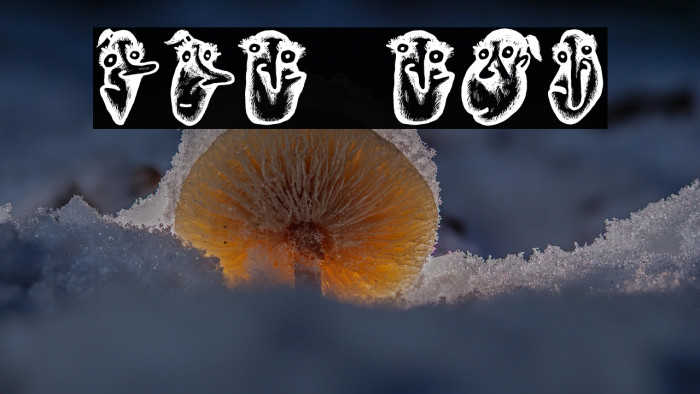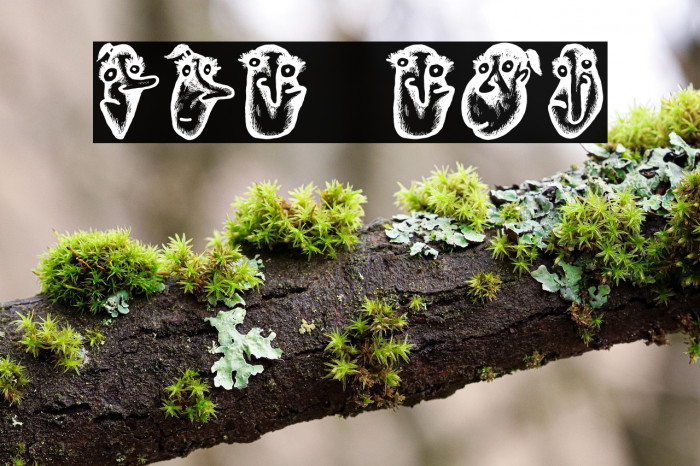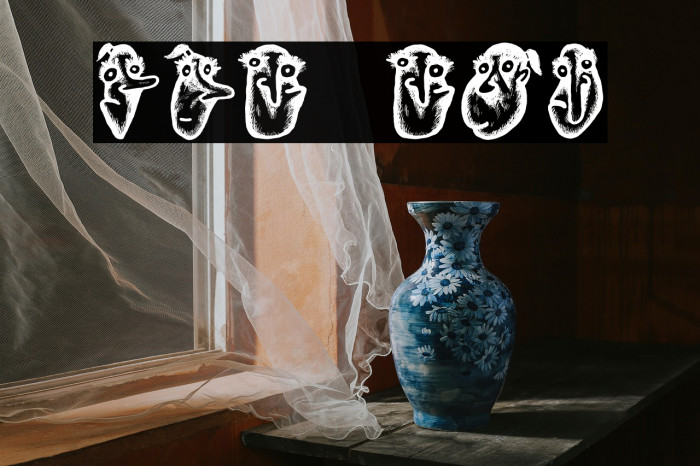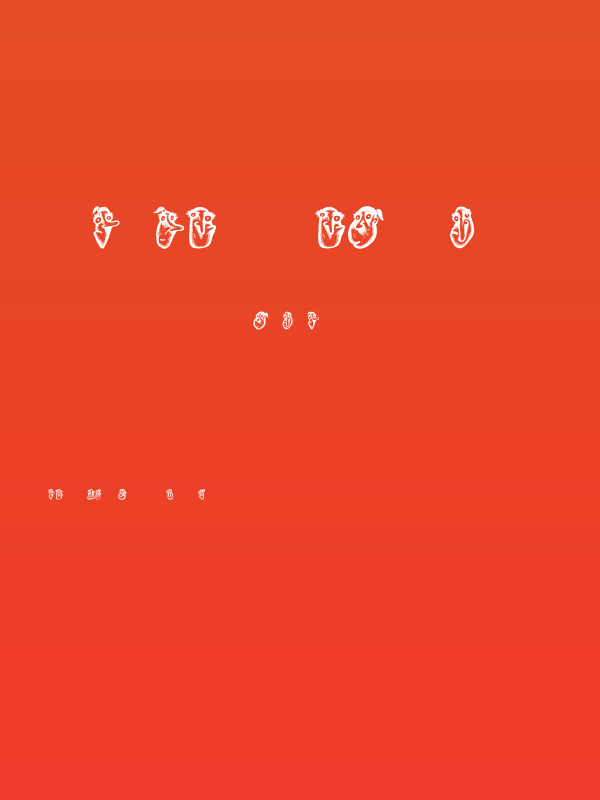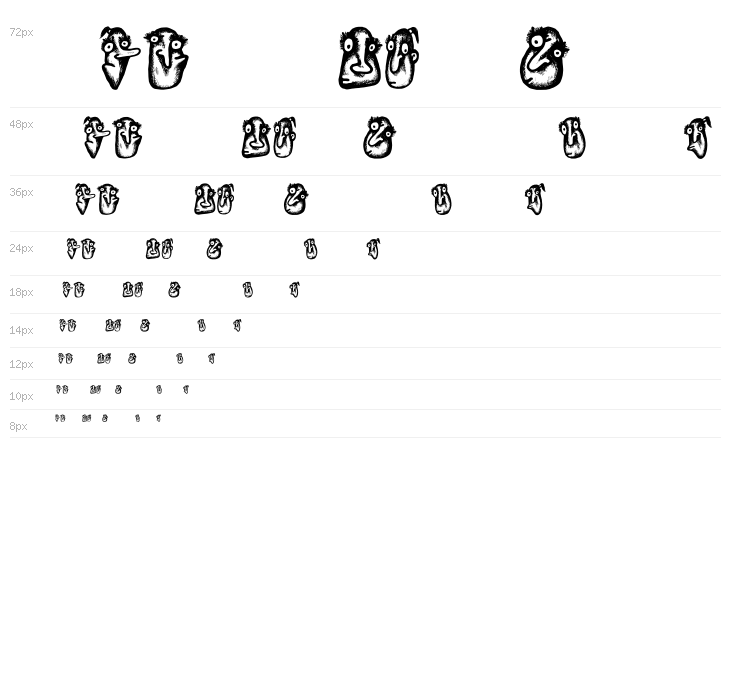
Hoder Regular Font
Hoder Regular Description
This font features a whimsical and playful design, with each character resembling a quirky, cartoon-like face. The letters are crafted with a hand-drawn aesthetic, giving them a unique and artistic flair. The exaggerated features and bold outlines make each character stand out, creating a visually engaging and entertaining typeface. The font's distinct style is characterized by its imaginative and humorous approach, making it ideal for creative projects that require a touch of fun and personality.
| Use Case | Logos, Headlines, Posters |
| Proposed Projects | Ideal for children's books, comic strips, playful branding, and creative posters. |